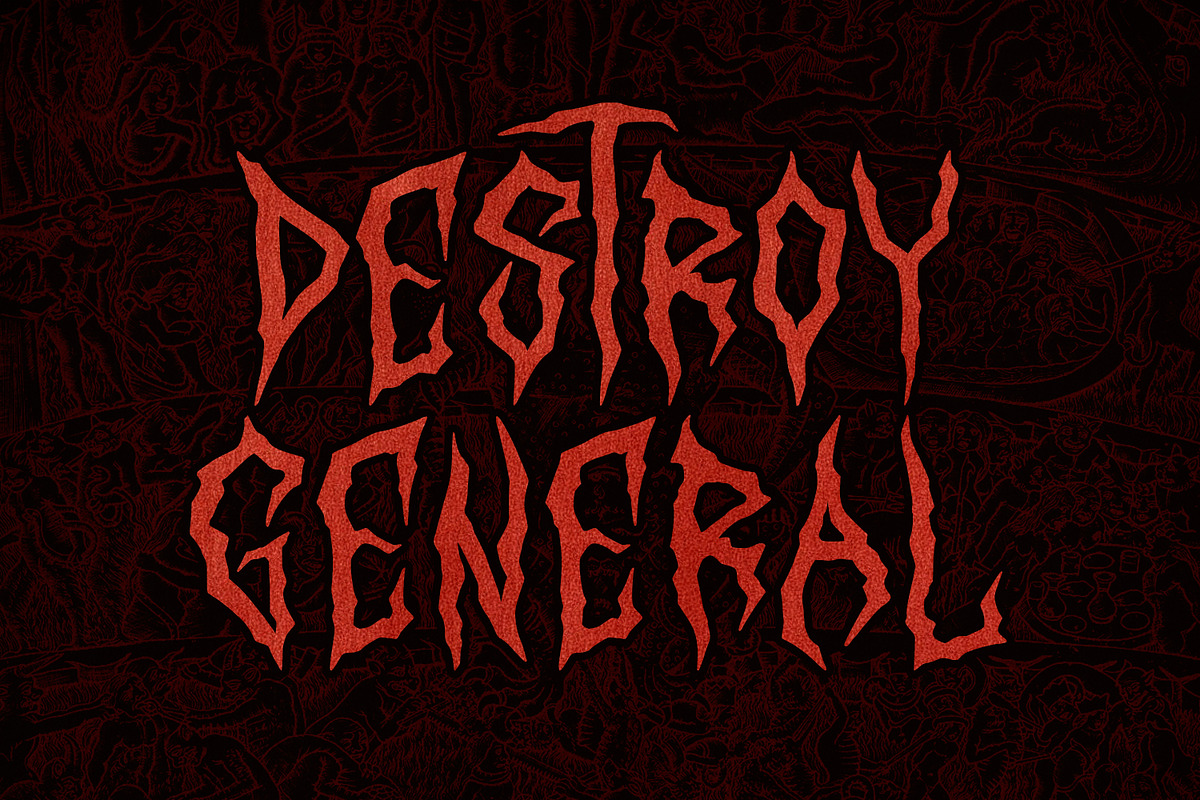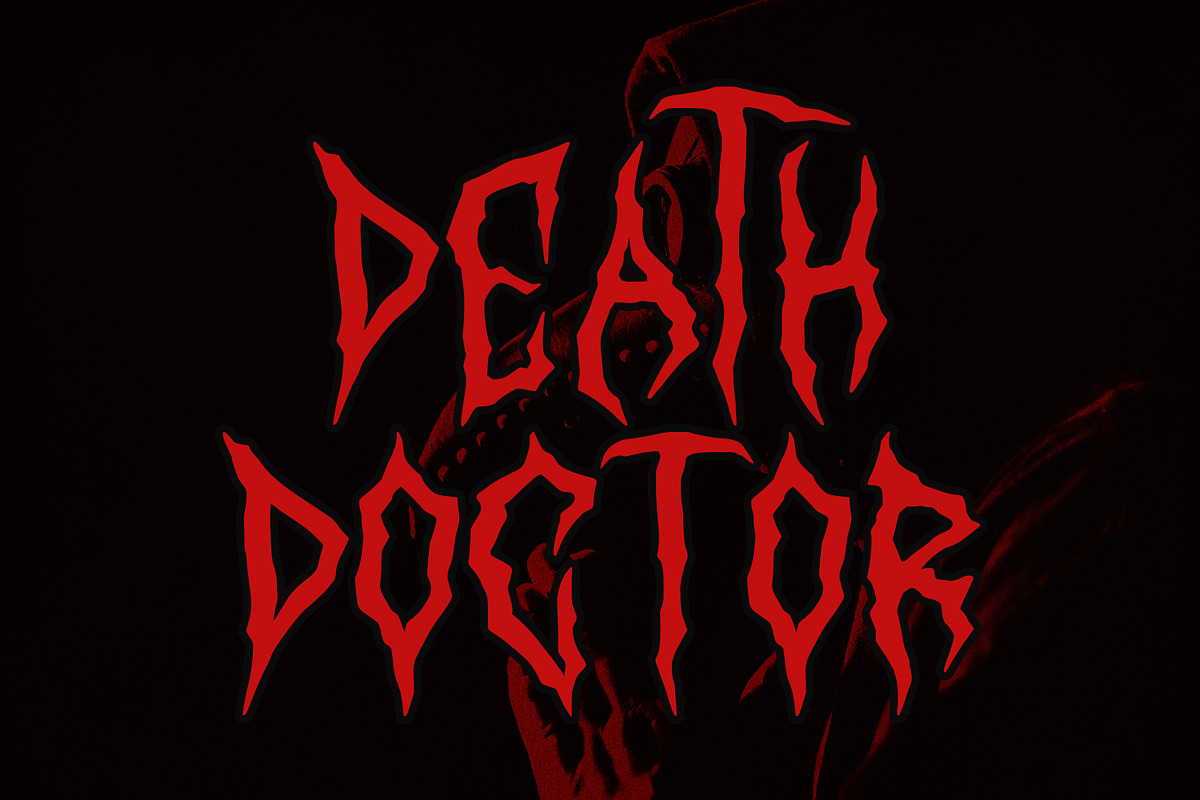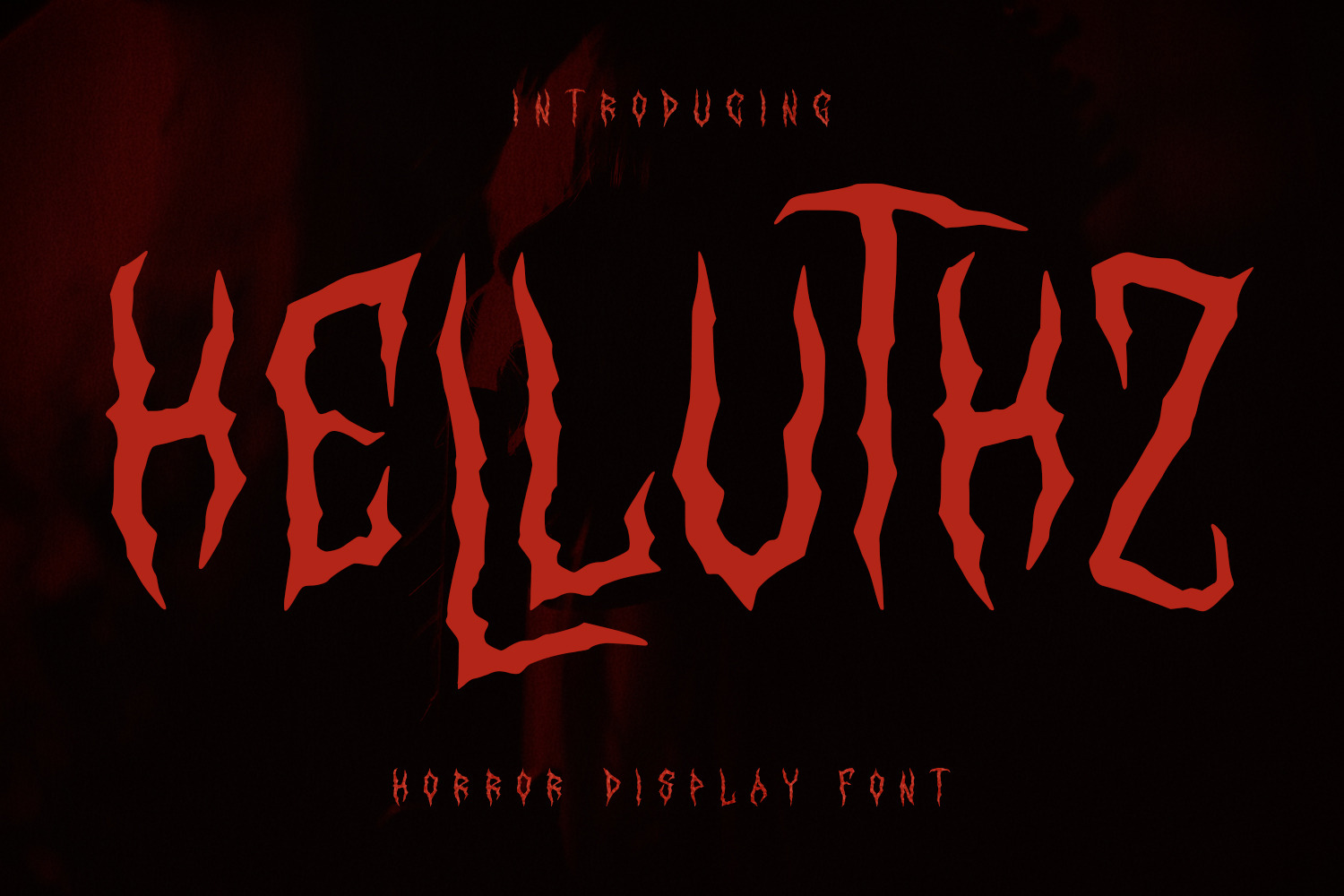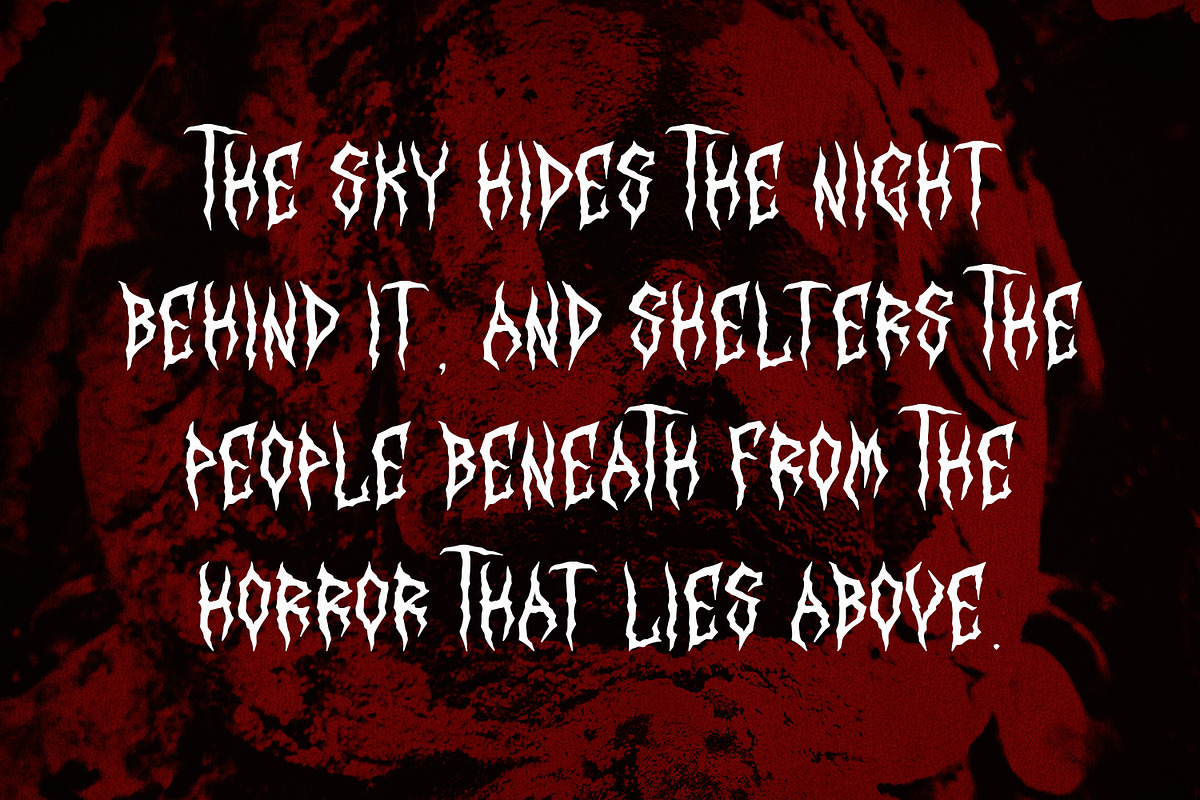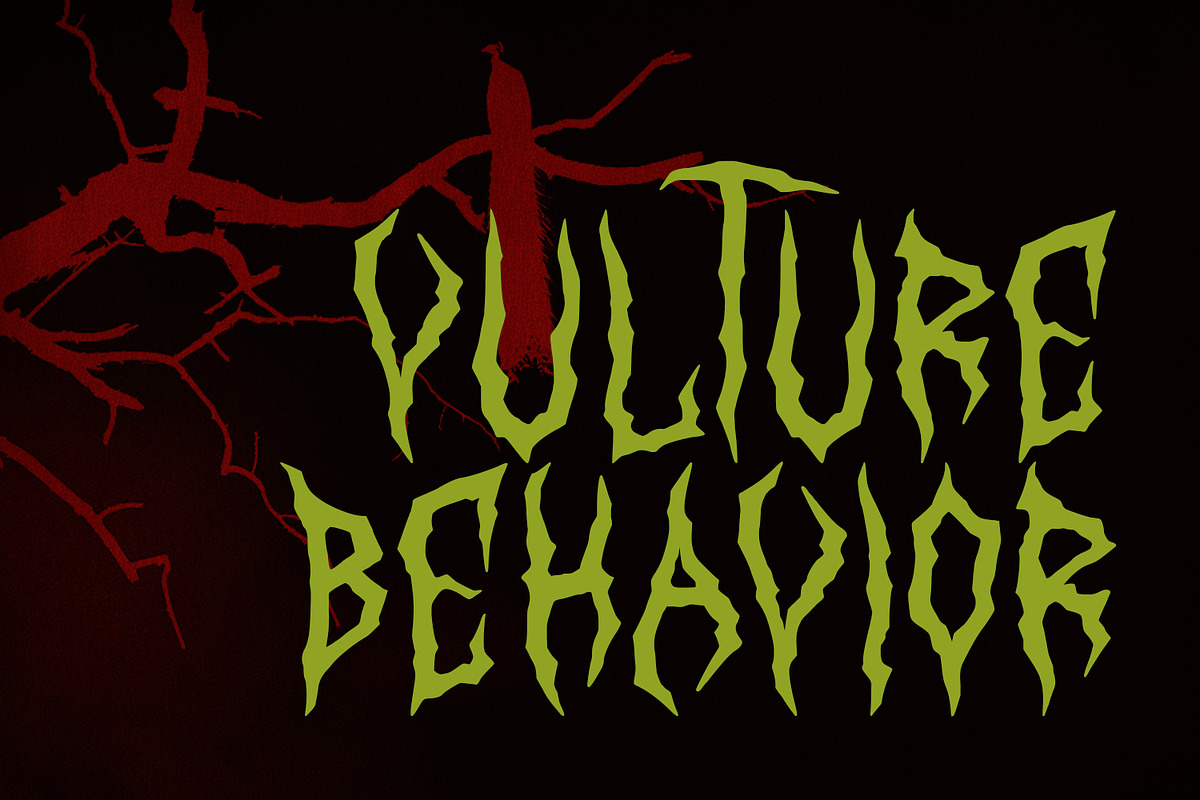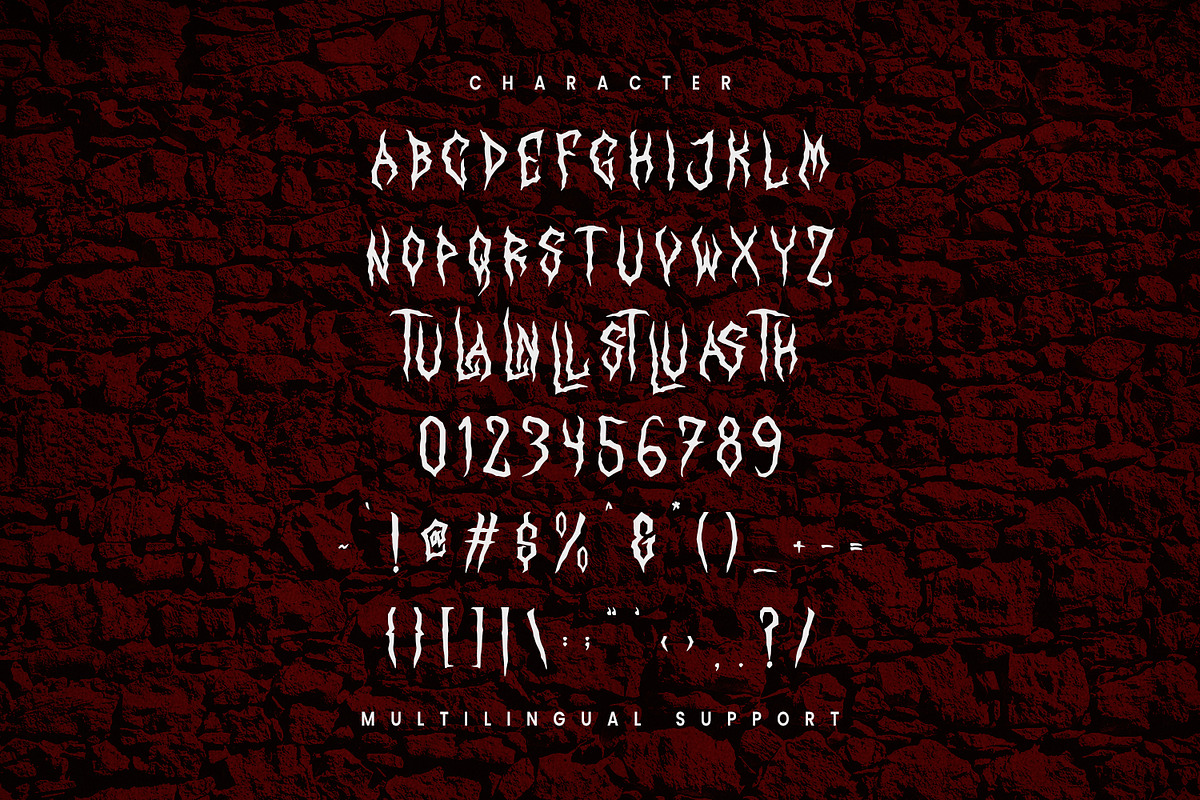
Helluthz Horror Display Font
Give your designs an authentic brush handcrafted feel. “Helluthz Horror Display Font” is perfectly suited to stationery, logo, typography quotes, magazine or book cover, website header, flyer, clothing, branding, packaging design, music event, black metal event and more.